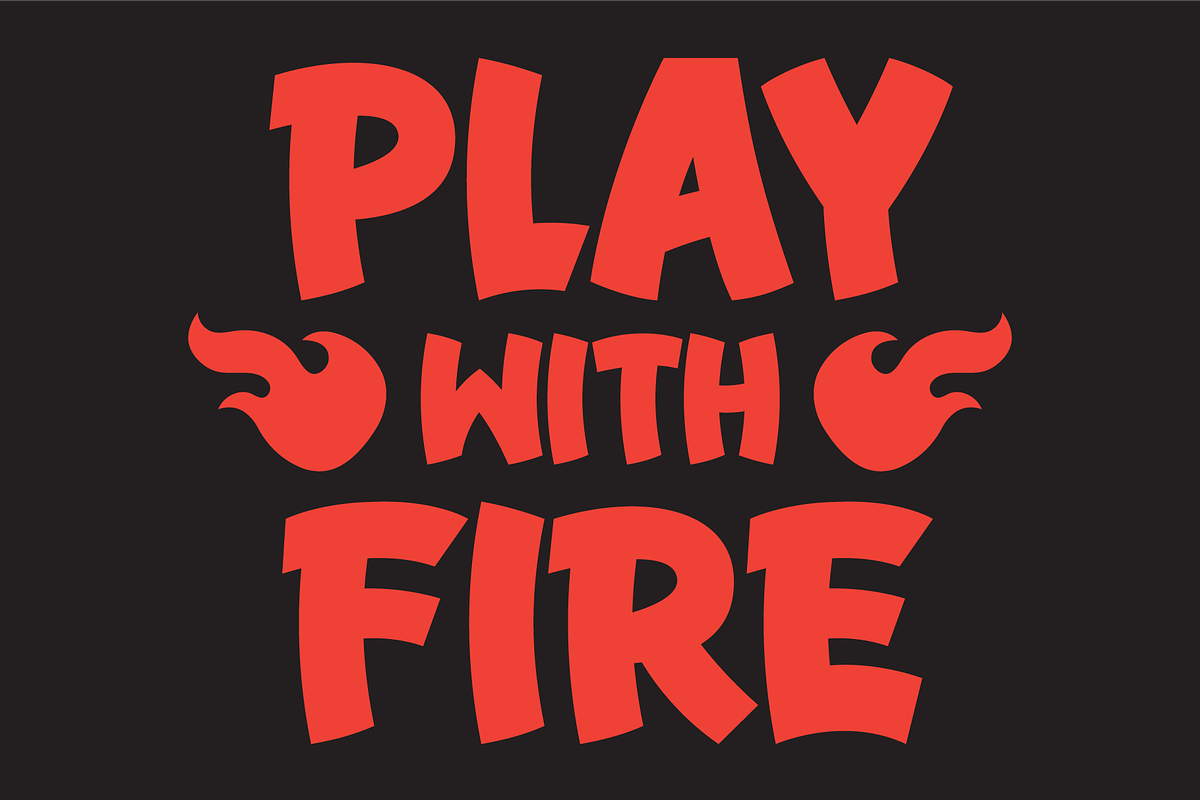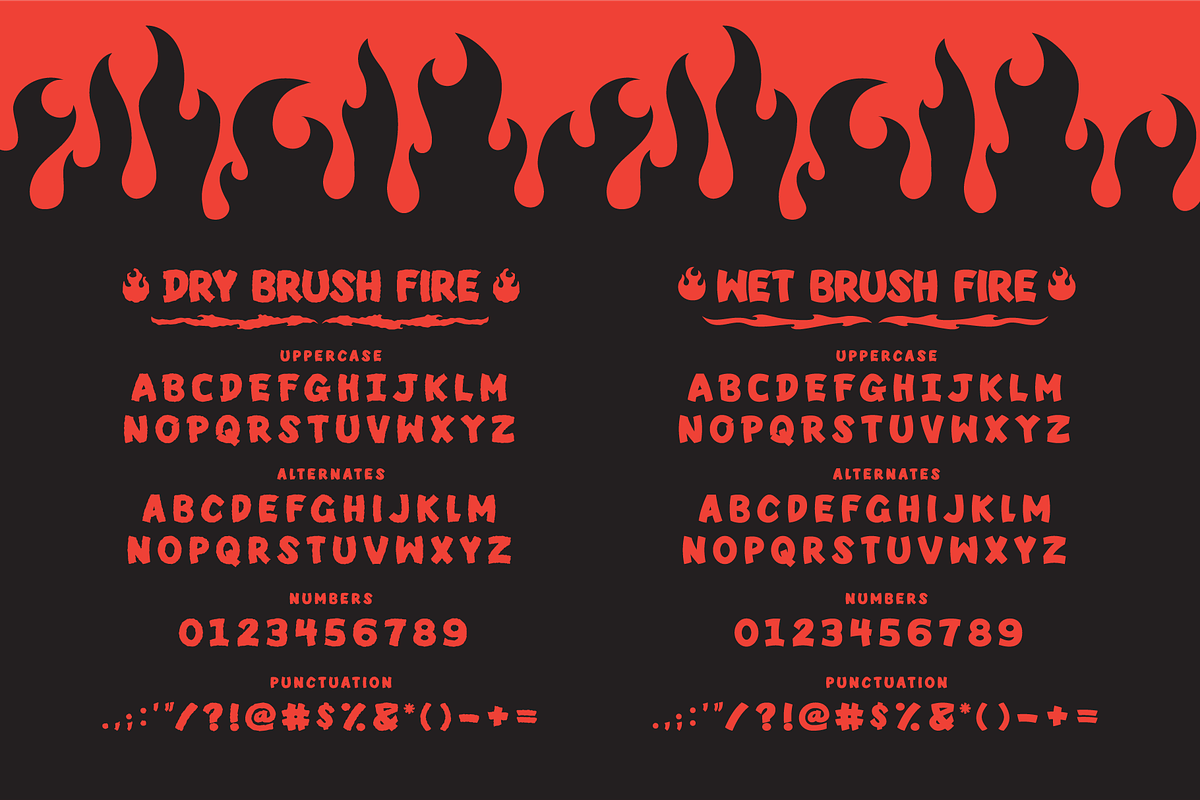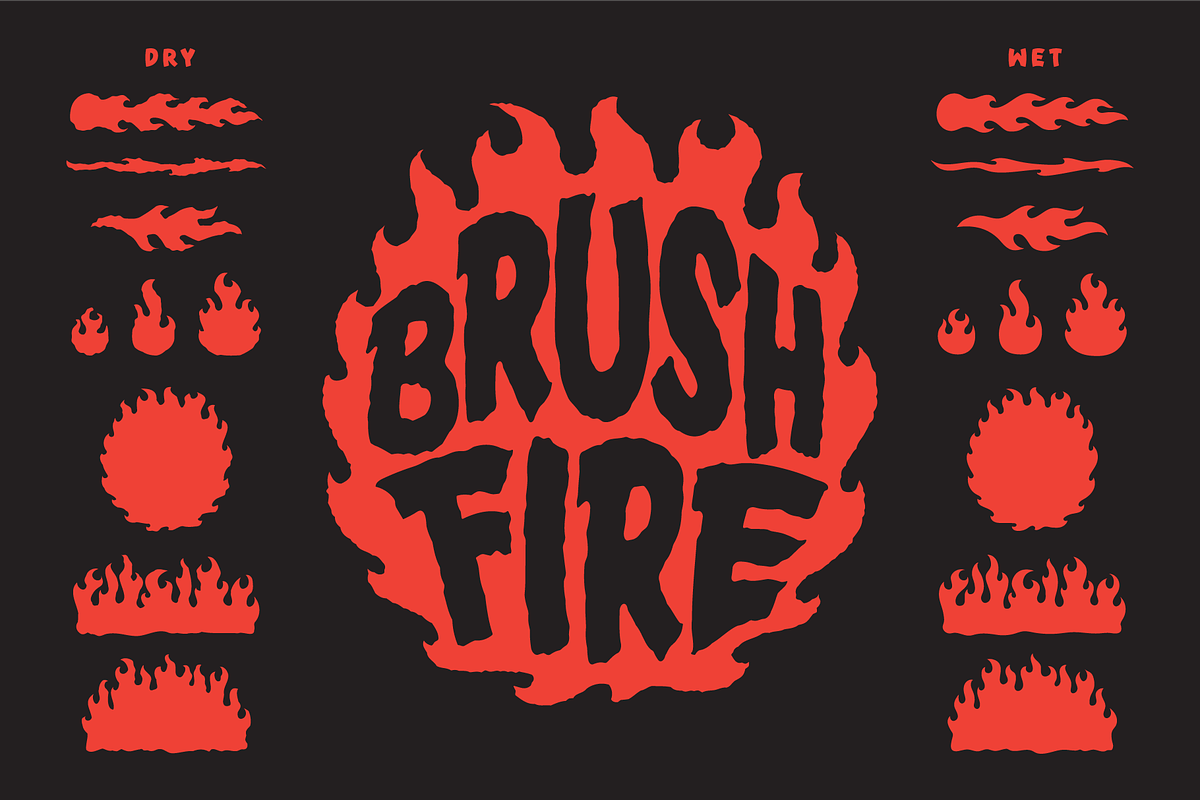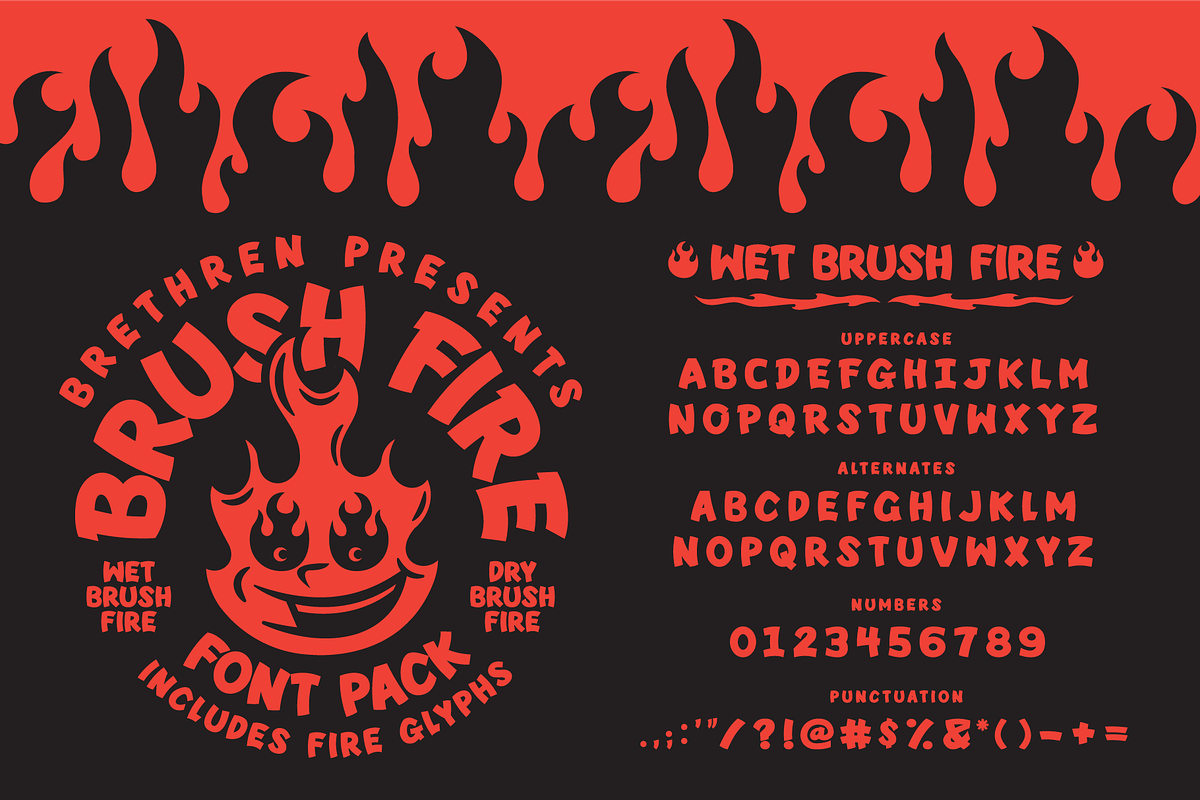
Brush Fire Font Family
A hot new display font that comes in two styles. Wet is super clean and Dry is wonky and organic. Added bonus, Brush Fire comes with an alternate of each letter using the lower case keys! So pop the caps lock on and off and pick which letter you see fit. Damn, almost forgot the glyph palette is full of vector flames you can use while you cook up your next design. Just open your glyph palette and select the flame, turn that shit to outlines and add some fire to your design.